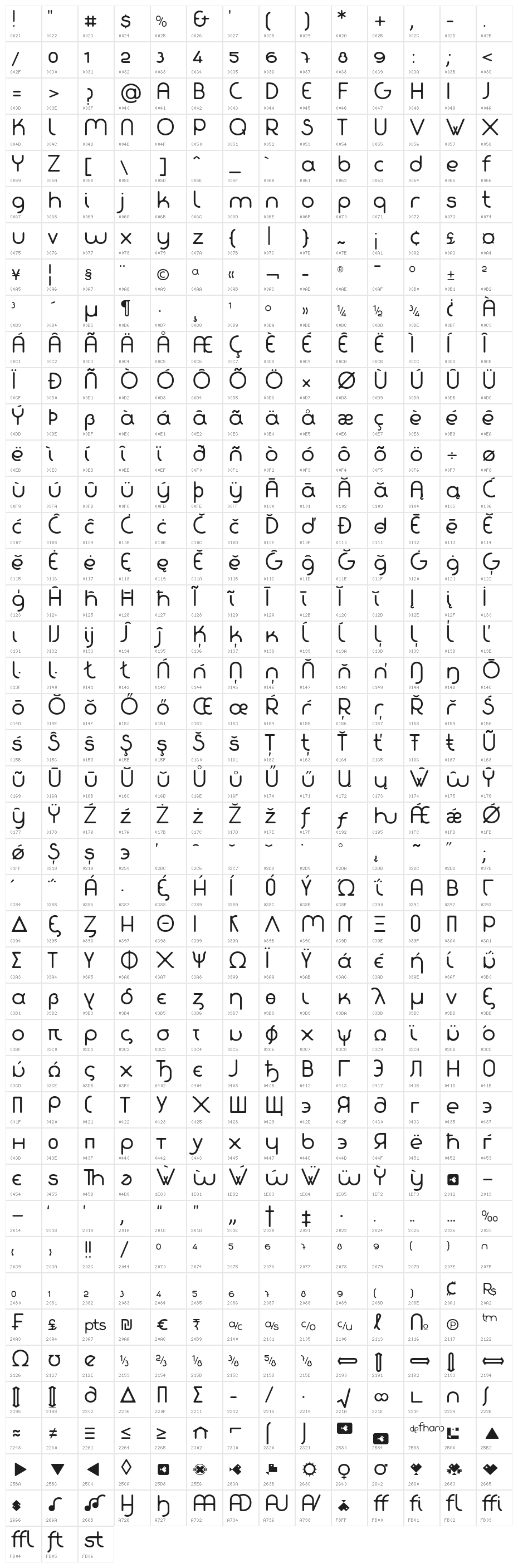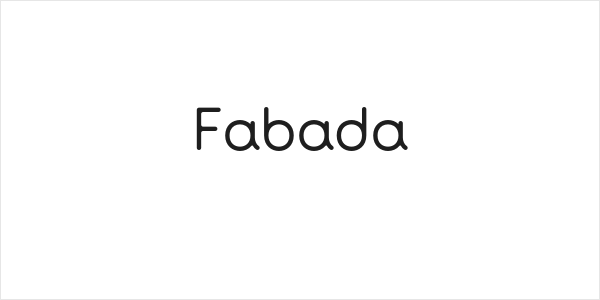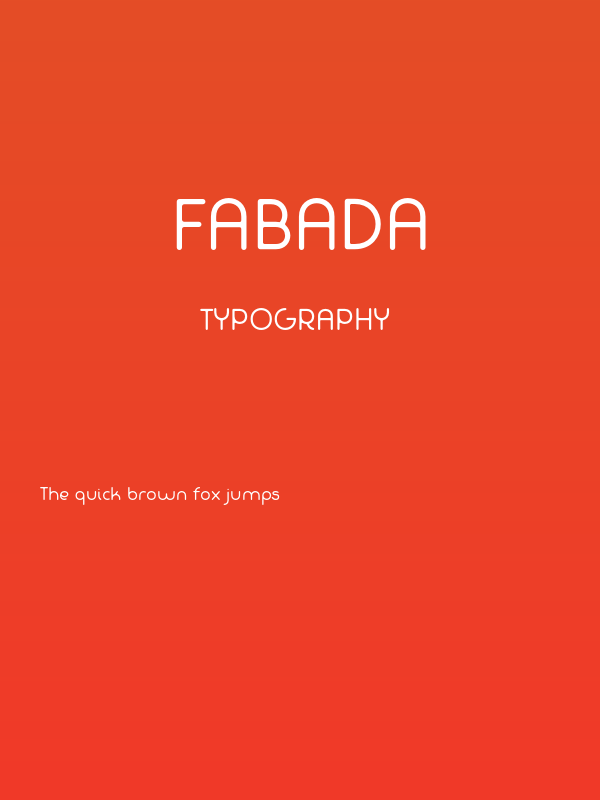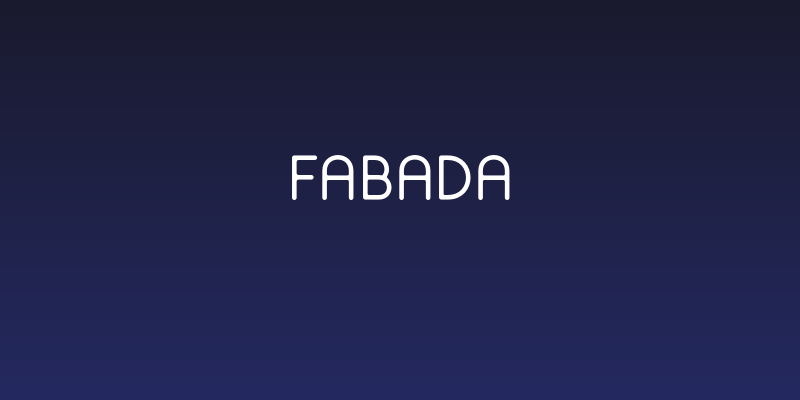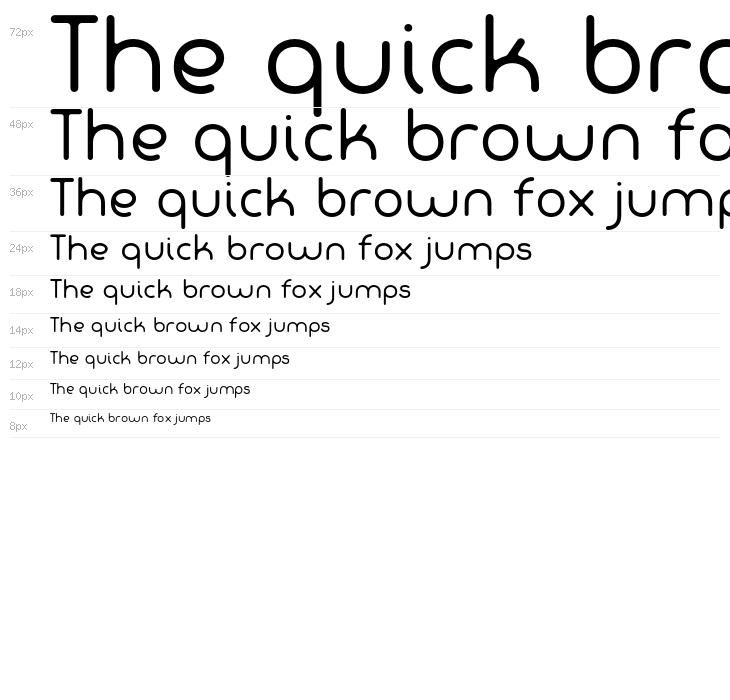
Fabada Font
Fabada Description
This font features a clean and modern sans-serif design with rounded edges that give it a friendly and approachable appearance. The uniform stroke width across all characters provides a consistent and harmonious look. The uppercase and lowercase letters are well-proportioned, with a slight geometric influence that enhances readability. The numerals are clear and distinct, making them suitable for various applications. Special characters are included, maintaining the same rounded and smooth aesthetic. Overall, the font exudes a contemporary and versatile style, ideal for digital and print media.
| Proposed Projects | Ideal for branding, web design, advertising, and user interfaces. |